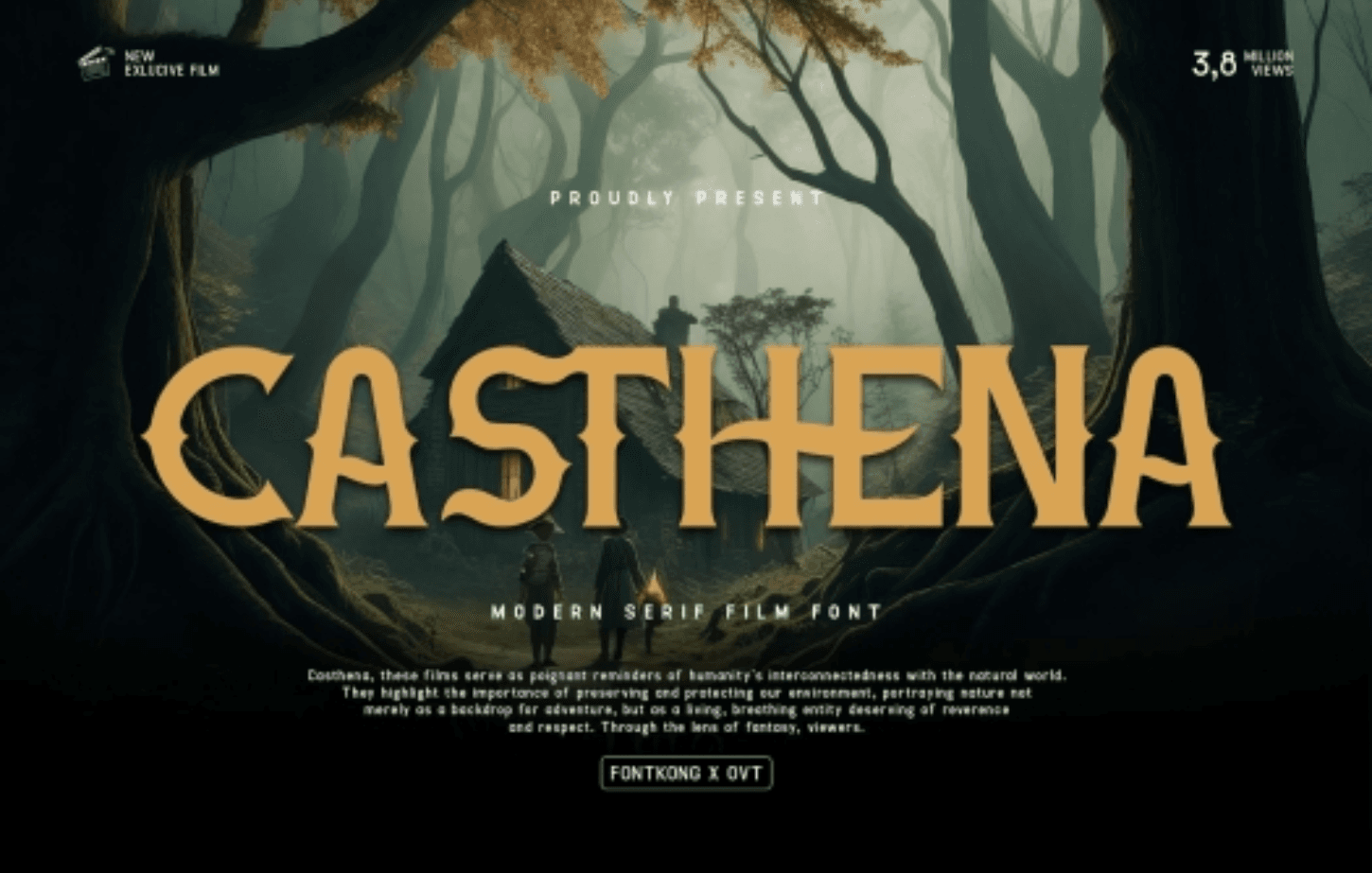
Casthena – Modern Serif Film Font
Classification: Serif
Casthena, a modern serif film font that exudes sophistication and cinematic charm. Designed for filmmakers, designers, and creatives seeking to add a touch of refinement to their work, Casthena blends classic serif features with contemporary elegance for a unique and timeless typographic experience. Whether you’re crafting film titles, posters, logos, or branding materials, Casthena’s sleek lines and graceful curves deliver a powerful visual impact, ensuring your designs shine with sophistication and style.